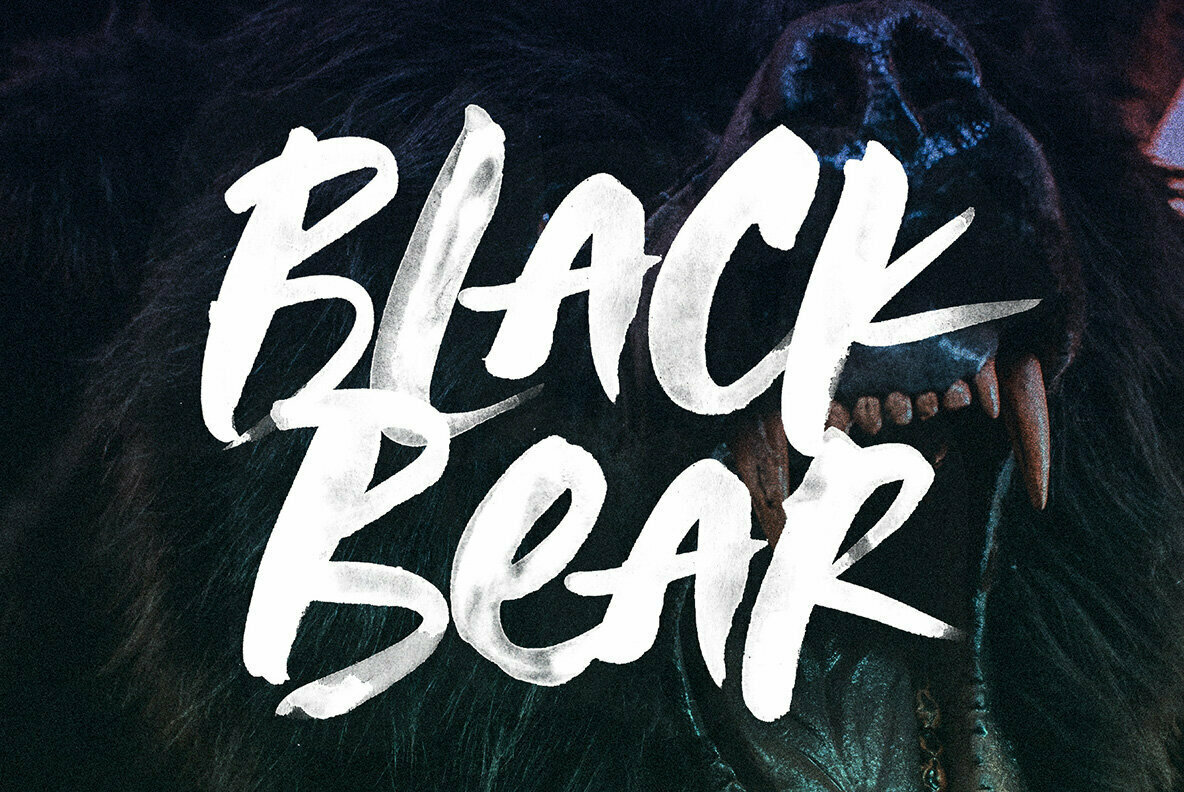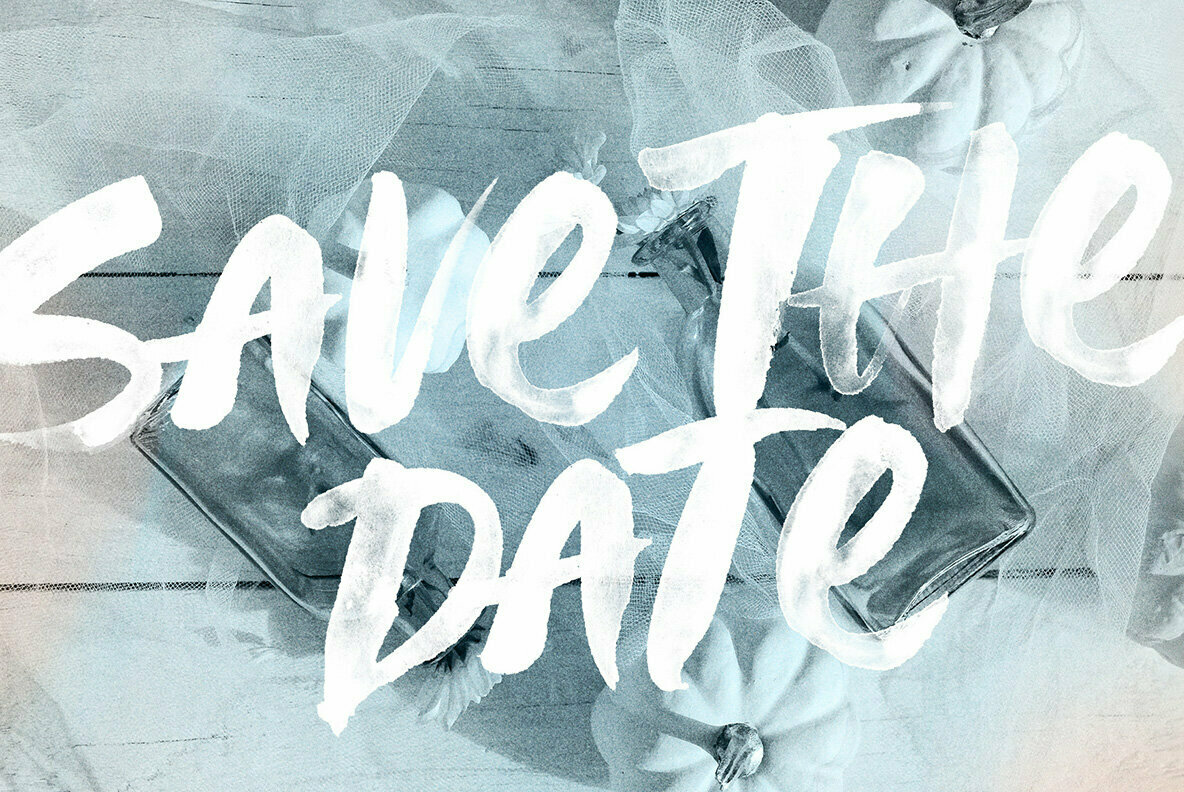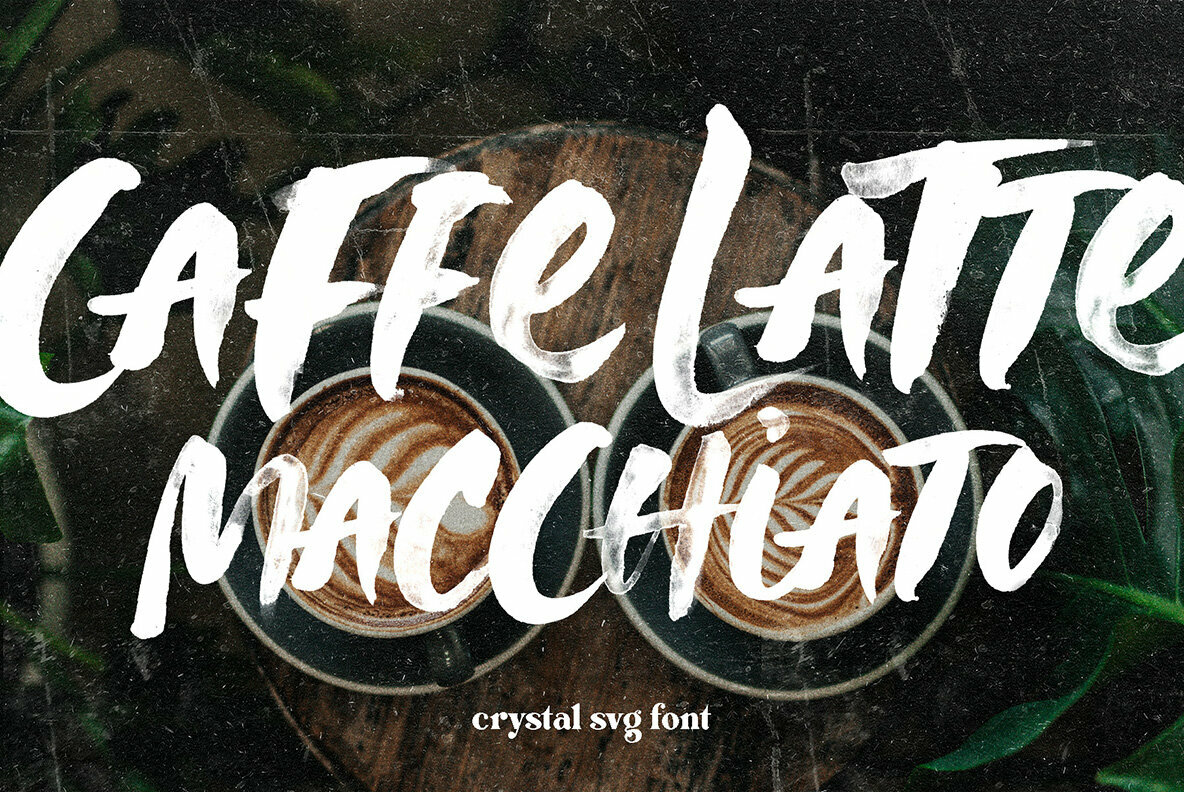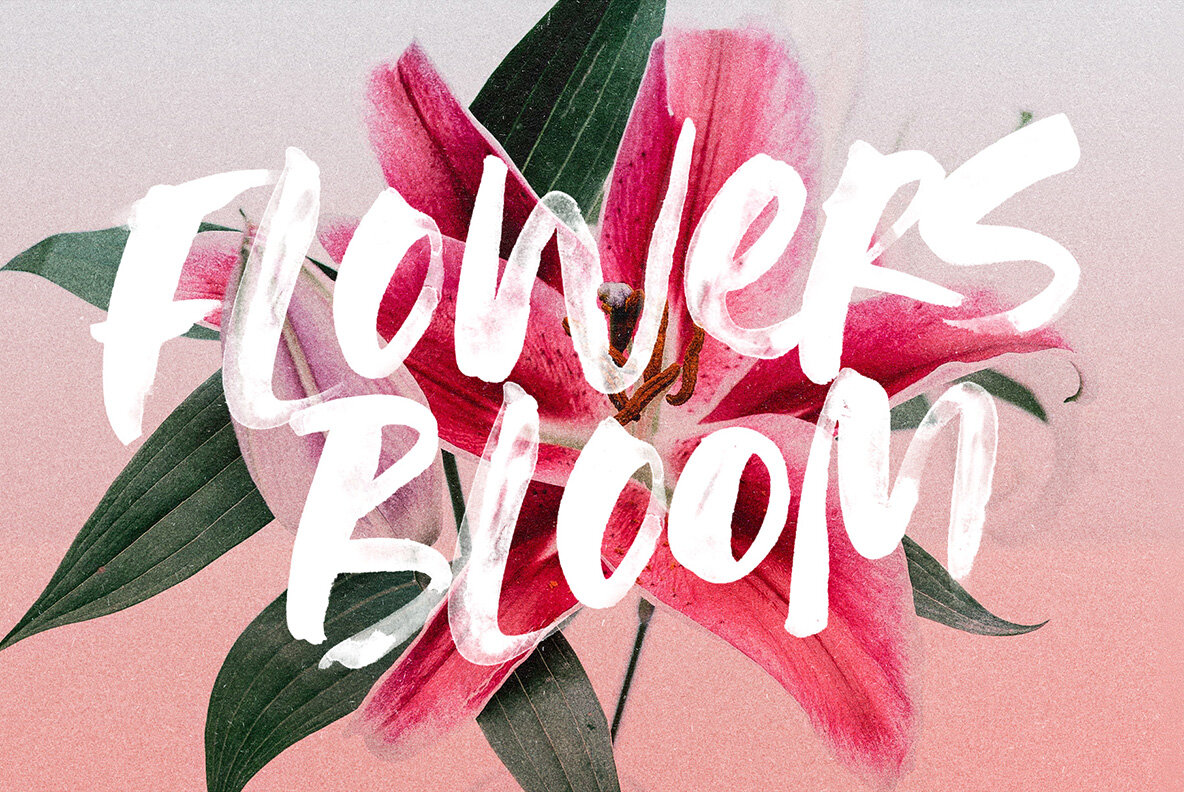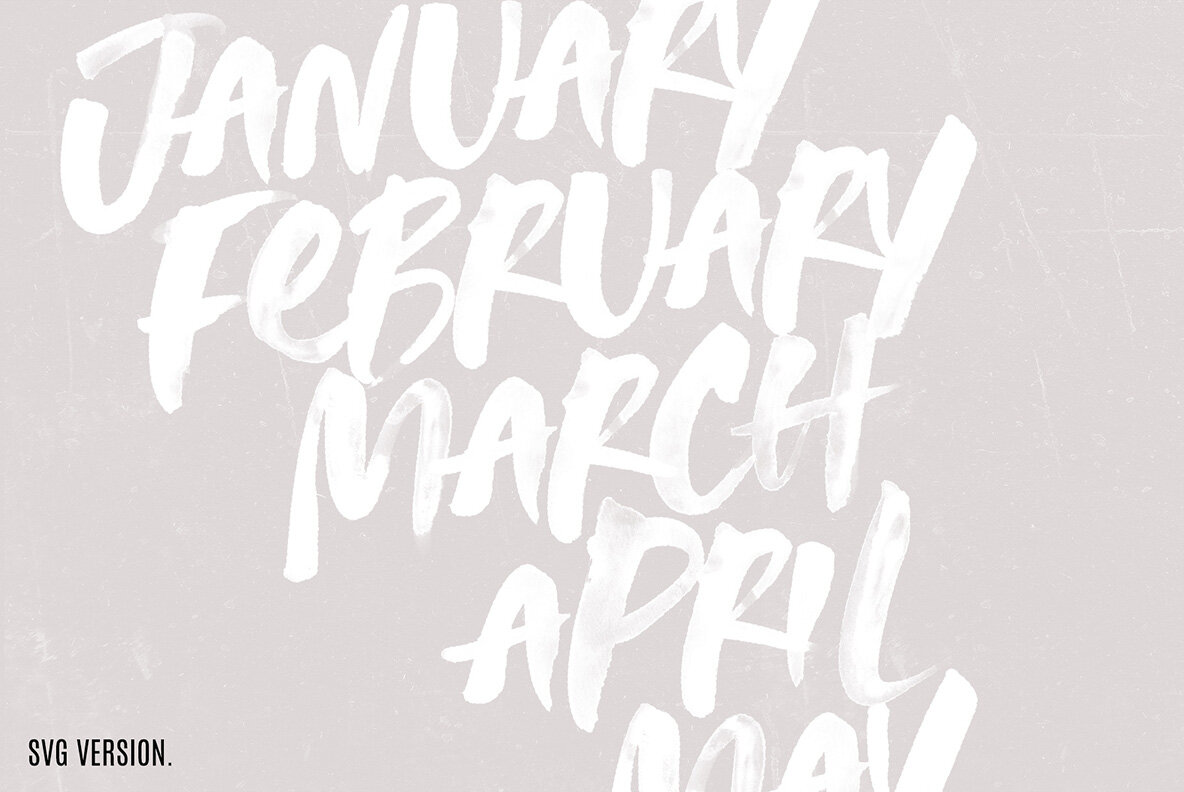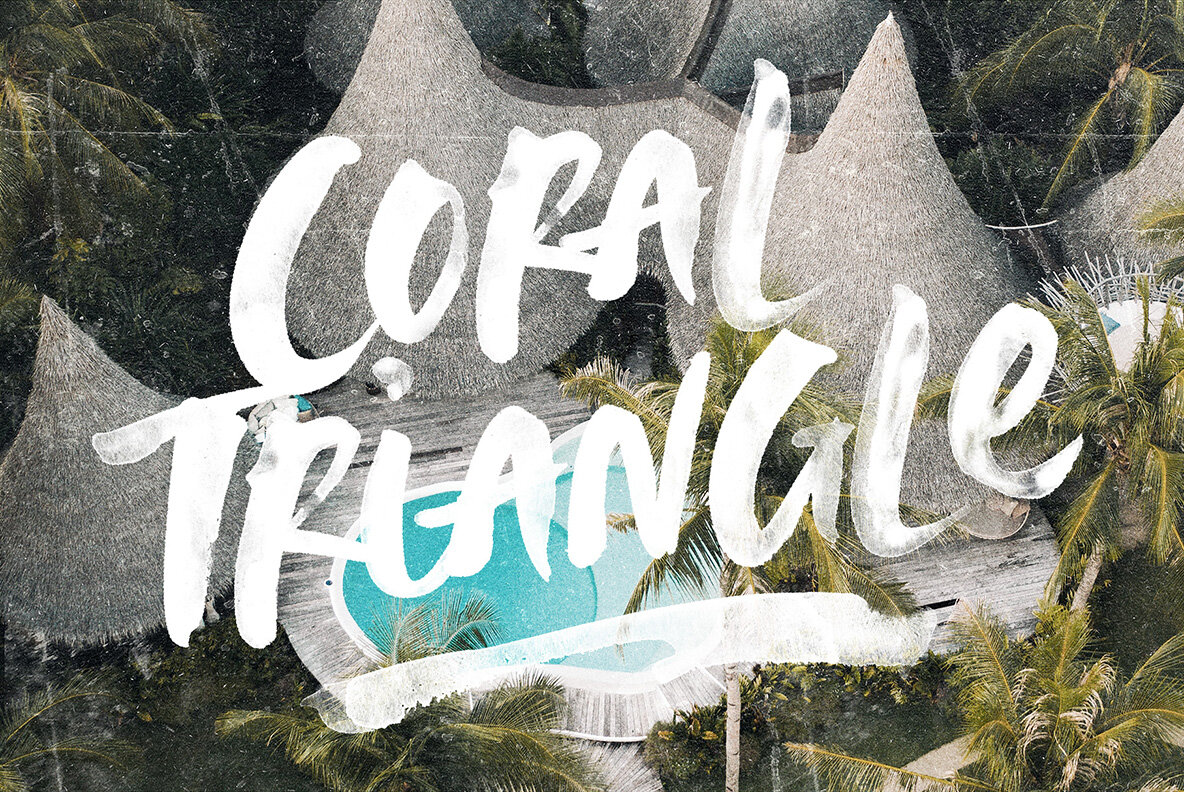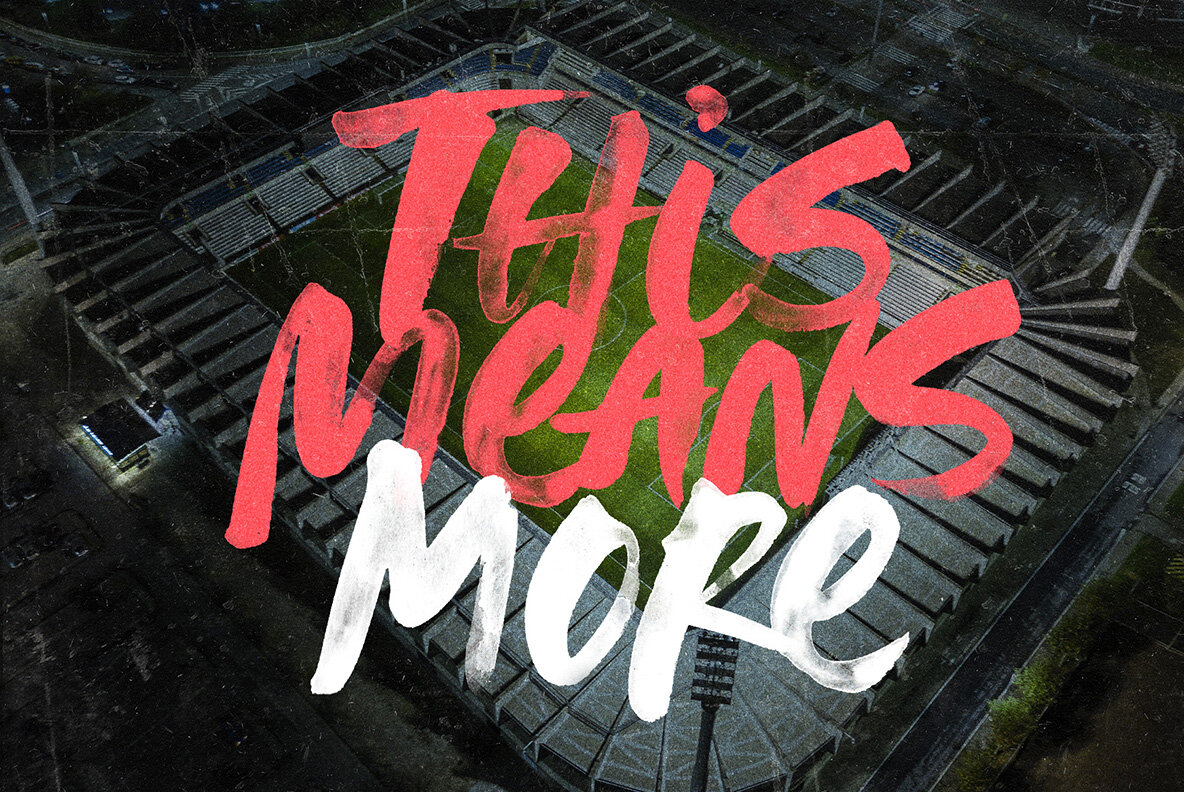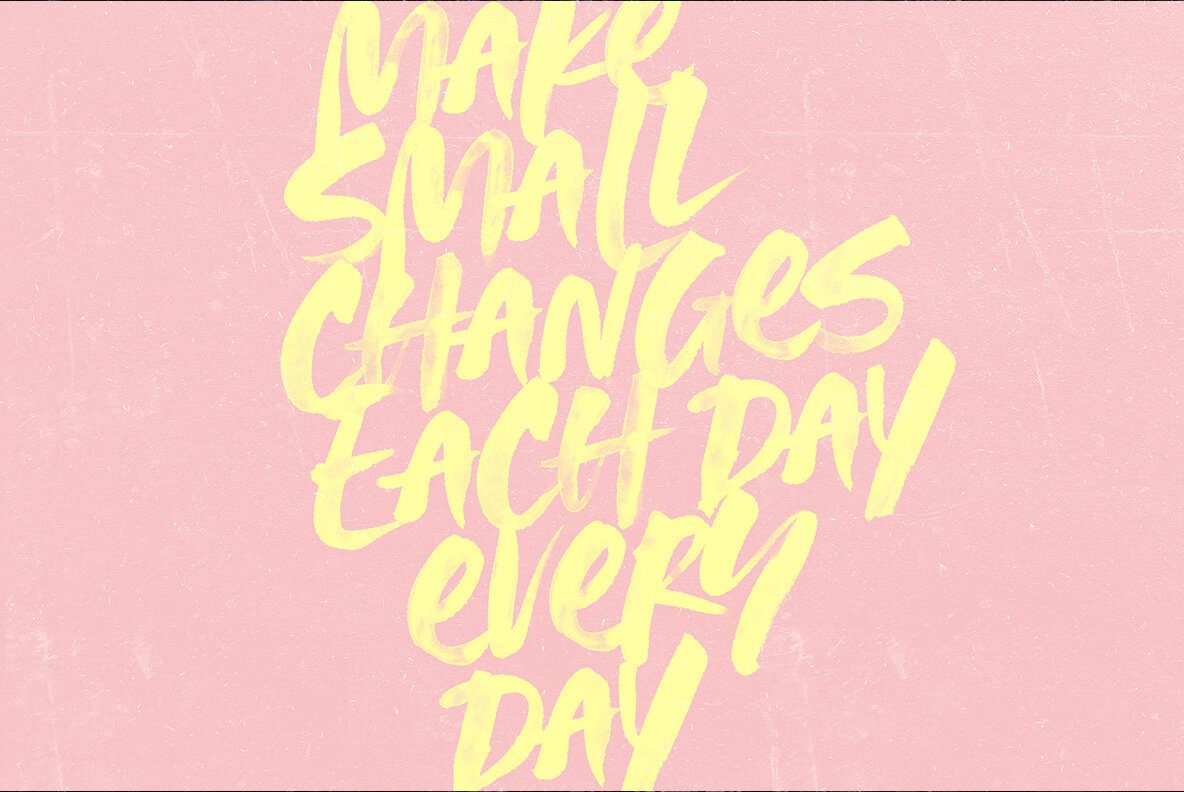
Crystal SVG font is watercolor SVG font what preserves all the high definition detail of the original handwritten letters. Using OpenType-SVG technology it truly looks realistic. The OpenType-SVG format requires Photoshop CC 2017 or Illustrator CC 2018 (or newer). Regular OTF format is also included.